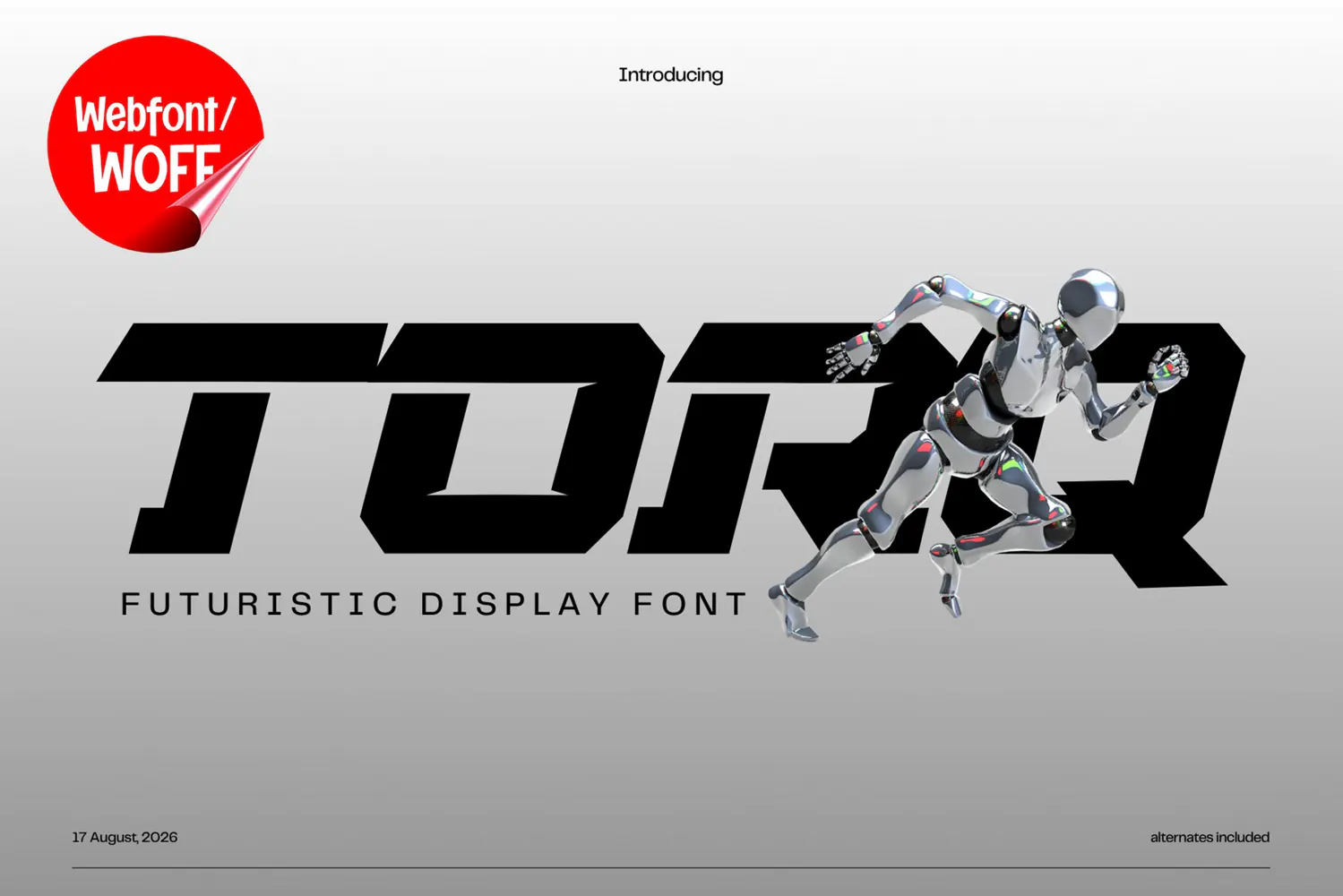
Bring a high-tech, futuristic vibe directly to your digital platforms using Torq Webfont. This sleek and sharp display typeface is specifically crafted to give websites, tech portfolios, esports landing pages, and modern digital stores an edge-of-tomorrow look.
Transform your website into a digital masterpiece with the modern sci-fi aesthetics of Torq!
Torq